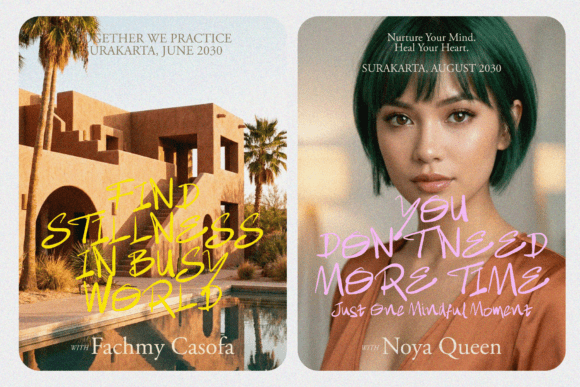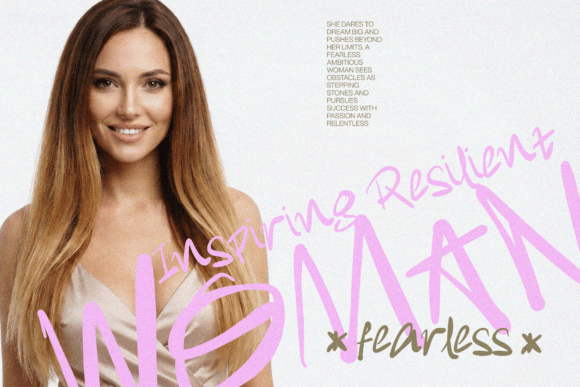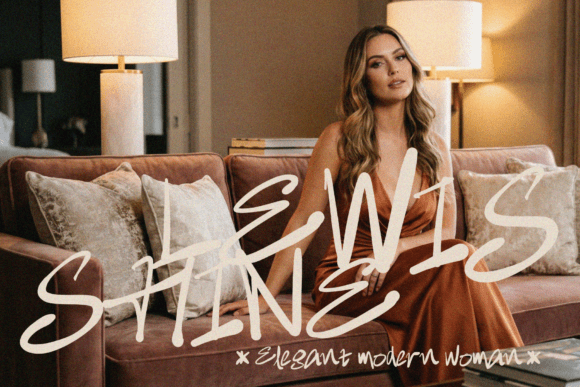
Introduction to New Siqon Font
Remember that moment when you stumbled upon the perfect font to elevate your design project? For many creatives, it’s a moment of pure bliss, a spark that ignites the imagination and sets the tone for an unforgettable visual narrative. The search for that elusive typeface can be a daunting task, but what if we told you that your quest has finally come to an end?
Enter the New Siqon Font, a bold brush font that radiates raw energy and a spirited charm. This dynamic typeface is designed to inject each character with an unparalleled intensity and motion, making it the perfect addition to any creative project. Whether you’re working on an athletic poster, a gripping social media graphic, or a high-quality product packaging design, the New Siqon Font is an invaluable design resource that’s sure to elevate your work to new heights.
With its versatility and unique charm, the New Siqon Font is an excellent choice for designers who value high-quality typography and are looking for a bold statement to make in their creative project. Plus, with a transparent background and free download option, you can easily integrate it into your design workflow and explore its full potential.
Key Features of New Siqon Font
- Transparent background, allowing for seamless integration with images and other design elements.
- Designed with precision, featuring a high resolution of 300 DPI, ensuring crisp and clear typography.
- Perfect for use in various design applications, including logos, branding, and typography-based creative projects.
Honest Review: New Siqon Font
I recently had the chance to work with the New Siqon Font, and I’m excited to share my honest thoughts on this design resource.
- The New Siqon Font boasts a high-quality design that’s perfect for a creative project.
- The font’s transparent background makes it easy to use with any design element.
- The font’s versatility makes it suitable for a wide range of design applications.
- The font may not be suitable for all design styles, particularly those that require a bold or dramatic font.
Overall, I’m impressed with the New Siqon Font’s quality and versatility. While it may have some limitations, it’s a great addition to any designer’s toolkit. If you’re looking for a reliable design resource, the New Siqon Font is definitely worth considering.
The New Siqon Font is a high-quality design resource ideal for creative projects. With its transparent background, it offers endless possibilities for customization and creativity.
Getting the Most Out of New Siqon Font
To get the most out of this font, experiment with different font sizes, colors, and styles. Combine it with other design elements to create unique and eye-catching designs.
The New Siqon Font is perfect for a variety of projects, including logos, business cards, brochures, and social media graphics. Its versatility makes it an ideal design resource for any creative project.
Alternatives to New Siqon Font
Montserrat is a high-quality sans-serif font designed for digital media and creative projects. It’s perfect for use in logos, headings, and body text. Montserrat is a great alternative to New Siqon Font when you need a clean and modern look with a transparent background.
Comparison: Montserrat has a more geometric and modern feel compared to New Siqon Font, making it ideal for digital design and creative projects.
Open Sans is a free download font that’s perfect for high-quality design projects. It’s a versatile font that works well in headings and body text, making it a great alternative to New Siqon Font. Open Sans is ideal for use in websites, magazines, and other design resources.
Comparison: Open Sans has a more neutral and friendly feel compared to New Siqon Font, making it ideal for a wide range of design projects.
Lato is a high-quality font that’s perfect for creative projects. It’s a modern sans-serif font that works well in headings and body text, making it a great alternative to New Siqon Font. Lato is ideal for use in logos, websites, and other design resources.
Yes, the New Siqon Font includes a transparent background option, making it easy to use in various design scenarios. This feature allows you to easily place the font over any background image or color, giving you more creative freedom and flexibility.